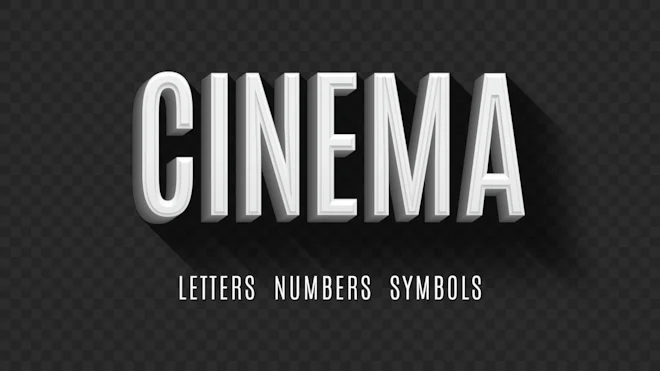
This stock motion graphics video pack includes 74 clips of jumping retro cinema lowercase and uppercase letters, numbers and symbols on a transparent alpha channel in a seamless loop.